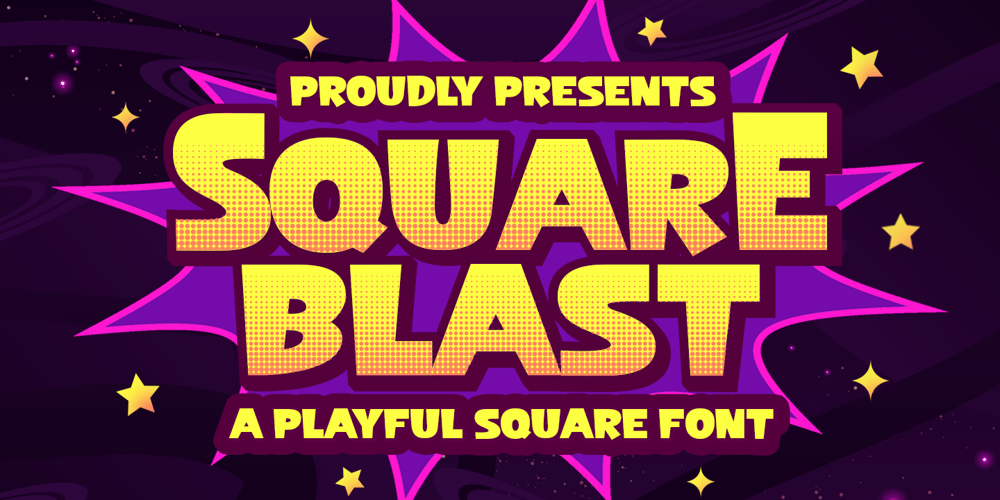
Square Blast
Square Blast font
Square Blast Font Family was designed by Bangkit Tri Setiadi and published by Blankids. Square Blast contains 2 styles and family package options. Hello,Are you looking for a Comic/Cartoon font? Do you want of creating Something that stand out and inspire creativity, imagination, and endless fun? Wait no more, we will give you the best choice.Square Blast a Playful Square Font, Inspiring from playful bouncy cartoon style typography. This font is perfect for a design that makes it more attractive and playful. made with a very good level of aesthetics making this font suitable for book cover, children book, comic, poster, packging, merchandise, logotype and much more.Square Blast font includes Multilingual Support, among others :Afrikaans, Albanian, Asu, Basque, Bemba, Bena, Breton, Catalan, Chiga, Cornish, Danish, Dutch, English, Estonian, Faroese, Filipino, Finnish, French, Friulian, Galician, German, Gusii, Indonesian, Irish, Italian, Kabuverdianu, Kalenjin, Kinyarwanda, Luo, Luxembourgish, Luyia, Machame, Makhuwa, Meetto, Makonde, Malagasy, Manx, Morisyen, North Ndebele, Norwegian Bokmål, Norwegian Nynorsk, Nyankole, Oromo, Portuguese, Quechua, Romansh, Rombo, Rundi, Rwa, Samburu, Sango, Sangu, Scottish Gaelic, Sena, Shambala, Shona, Soga, Somali, Spanish, Swahili, Swedish, Swiss German, Taita, Teso, Uzbek (Latin), Volapük, Vunjo, ZuluFEATURES : Uppercase Lowercase Number Punctuation Multilingual PUA Encode Opentype